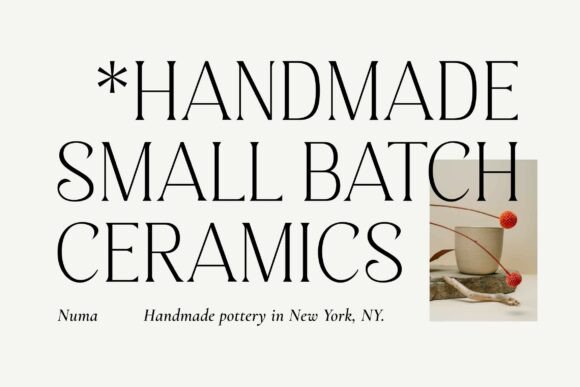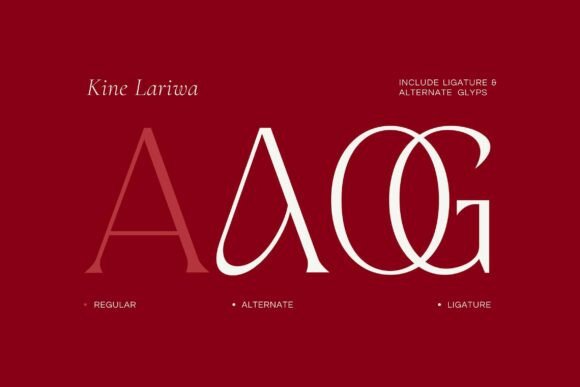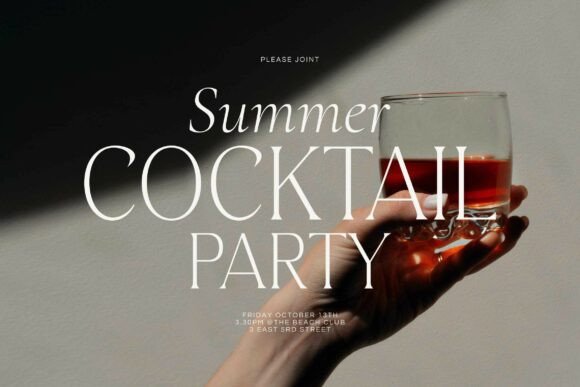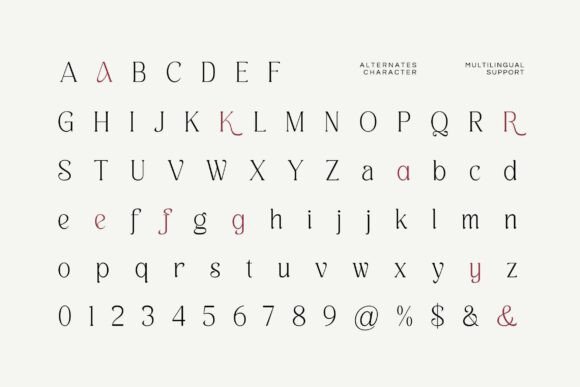
Introduction to Kine Lariwa Font Font
Fonts play a crucial role in design, and the Kine Lariwa Font font is a typeface that brings both character and versatility to any project. Whether you’re working on a branding project, a website, or a print design, the Kine Lariwa Font font offers a unique style that can elevate your work.
Meet Kine Lariwa, a stunning and sophisticated display serif font that exudes elegance and modernity.
Designed with a high contrast aesthetic, Kine Lariwa brings a touch of luxury and refinement to any project Its graceful letterforms are characterized by sharp, delicate serifs and a beautiful tension between thick and thin strokes, creating a captivating and memorable visual rhythm.
Key Features of Kine Lariwa Font Font
Why Choose Kine Lariwa Font Font?
The Kine Lariwa Font font is more than just a typeface – it’s a design tool that helps you communicate your message with style and clarity. Its unique character set and versatile design make it suitable for a wide range of applications, from elegant invitations to bold headlines.
With its carefully crafted letterforms and balanced proportions, the Kine Lariwa Font font ensures readability and visual appeal across all mediums.
What makes Kine Lariwa Font font special?
The Kine Lariwa Font font stands out with its unique design, exceptional readability, and versatility across various design applications.